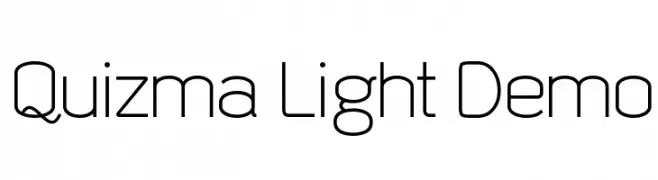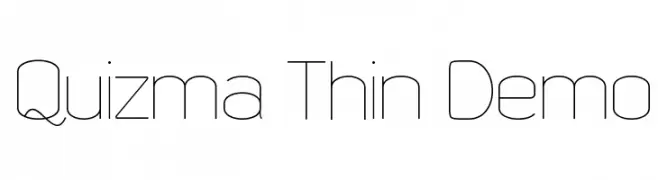
A sleek, modern, thin italic font with elegant proportions.
A modern, italic sans-serif font with clean lines and a dynamic slant.
A bold, modern sans-serif font with clean lines and strong legibility.
A clean, modern sans-serif font with balanced proportions and excellent readability.
A thin, modern sans-serif font with a clean and minimalist design.
A modern, light sans-serif font with excellent readability and clean lines.
A modern, light, italic sans-serif font with sleek, elongated characters.
Bold, italicized font with thick strokes and a dynamic slant.
A bold, modern font with thick strokes and a strong presence.
A clean, modern sans-serif font with uniform stroke width and excellent readability.
A bold, modern sans-serif font with clean lines and uniform stroke width.
A clean, modern sans-serif font with a light weight and uniform appearance.
A bold, italicized font with a modern and dynamic style.
A modern, italicized font with a clean and elegant style.
A sleek, light italic font with a modern and elegant design.
A sleek, modern italic font with smooth curves and consistent stroke width.
A sleek, modern, and italic font with thin strokes and open spacing.
A bold, italicized font with a modern, sleek design.
A modern geometric sans-serif font with clean lines and balanced characters.
A bold, geometric sans-serif font with a modern and clean style.
A sleek, modern font with thin, geometric strokes for a minimalist look.
A sleek, modern, light italic sans-serif font with elongated characters.
A modern, geometric sans-serif font with uniform stroke widths and rounded edges.
A modern sans-serif font with geometric structure and balanced appearance.
A modern, rounded, light italic font with a clean and elegant style.
A rounded, italicized font with a modern and friendly style.
A bold, rounded, and italicized font with a playful and modern style.